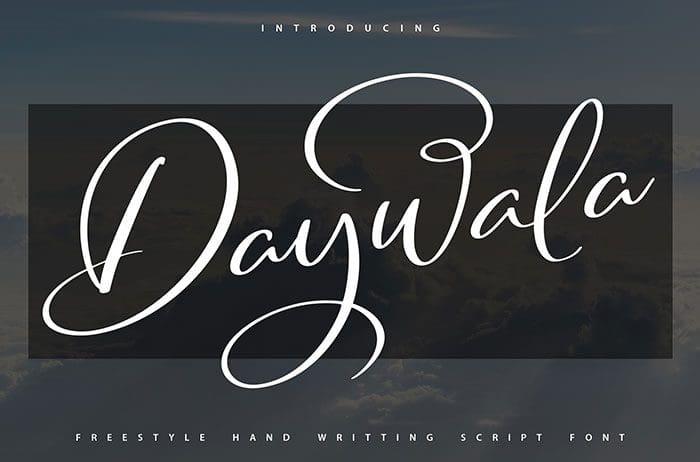
Daywala Script Font
Daywala is an elegant Script Font with a contemporary atmosphere and impeccable form, inspired by timeless classic calligraphy. Thanks to Vunira Studio for sharing this font! Take a look at this portfolio for more of his stunning fonts.